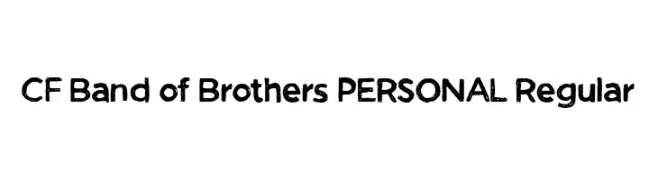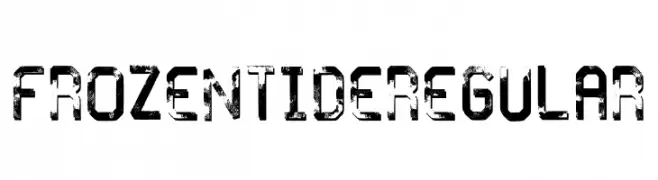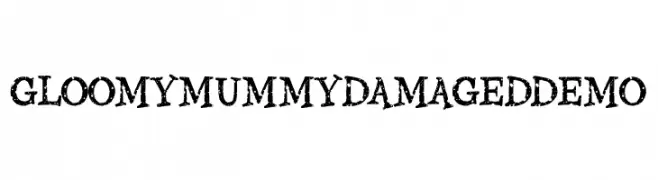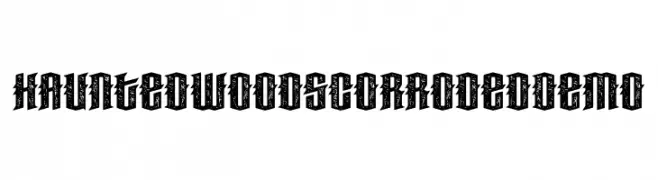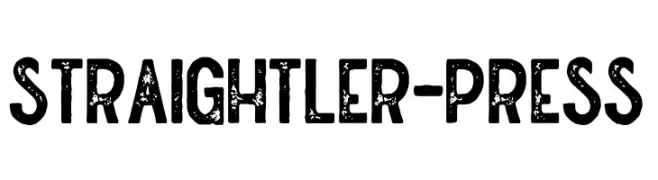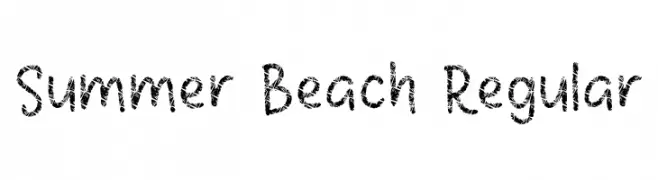
A playful, textured font with a beach-inspired design.
A distressed, textured font with a grunge-like aesthetic, ideal for edgy designs.
A bold, winter-themed font with snow-capped letters, perfect for festive designs.
A bold, corroded font with a haunting, gothic style.
A bold, distressed font with a rugged, vintage aesthetic.
A bold, textured, hand-drawn font with a playful and casual style.
A bold, textured font with a distressed, grunge style.
A bold, distressed font with a rugged, textured appearance.
A jagged, scratch-like font with a raw, edgy aesthetic.
A bold, distressed font with a vintage, textured style.